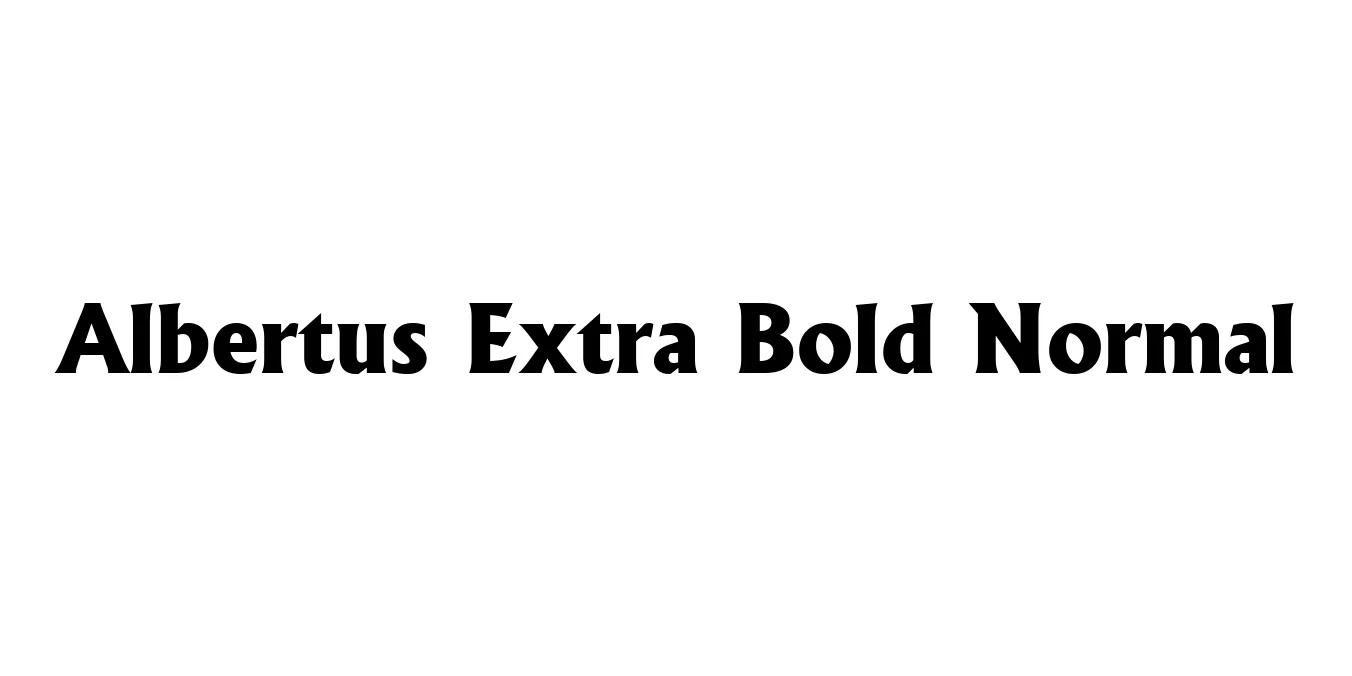
Albertus Extra Bold Normal
Designed by Berthold Wolpe
| Category | Glyphic Serif |
| Designer | Berthold Wolpe |
| Similar Fonts | Flareserif 821, Fritz Quadrata, Perpetua, Amerigo |
Albertus Extra Bold Normal was designed by the renowned German-born designer Berthold Wolpe for Monotype between 1932 and 1940. Named after the medieval philosopher Albertus Magnus, the typeface was inspired by Wolpe's own experience with incised lettering in bronze. The Extra Bold weight emphasizes the sculptural, chiseled quality of the letterforms, characterized by its distinctive flared serifs and high-contrast thickness that provides a sense of authority and permanence.
Historically, the Albertus family has seen widespread use in British culture, most famously appearing in the title sequences of the cult television series The Prisoner and across the branding for Faber and Faber. This extra bold variant is particularly lauded for its ability to command attention in display environments, bridging the gap between classical inscription and modern graphic design. Its unique aesthetic makes it a favorite for designers seeking a typeface that feels both historic and contemporary.
Albertus Extra Bold Normal Best Uses
Perfect for high-impact headlines and large-scale poster designs.
Excellent for creating distinctive and sturdy logo marks.
Widely used for book cover titles and magazine mastheads.
Effective for physical signage due to its high visibility and flared terminals.